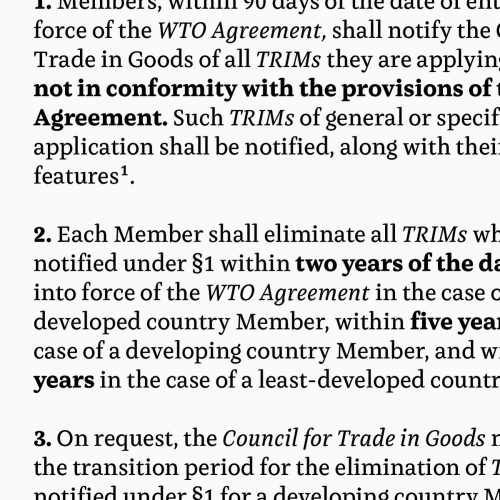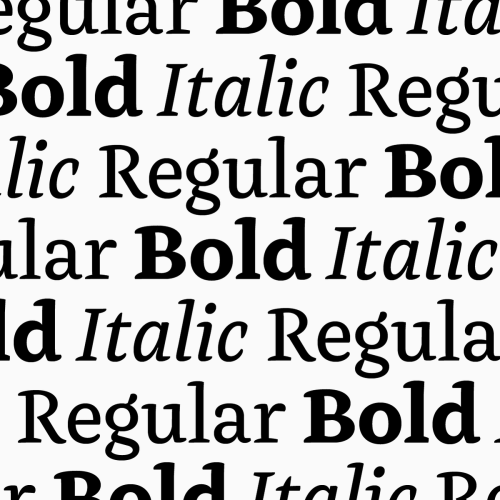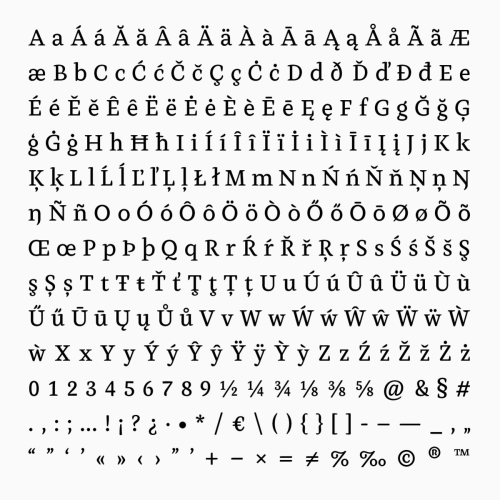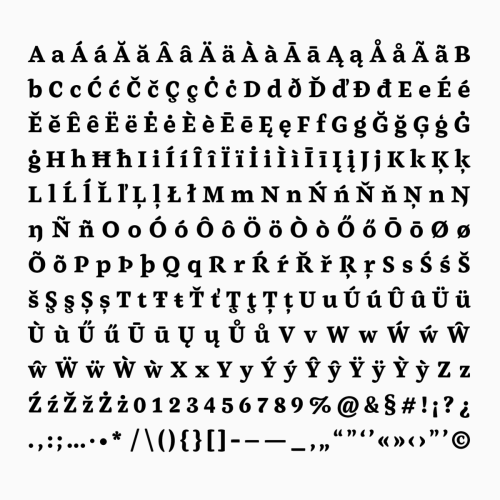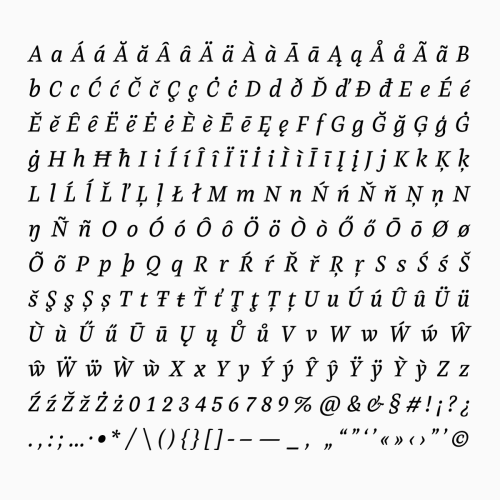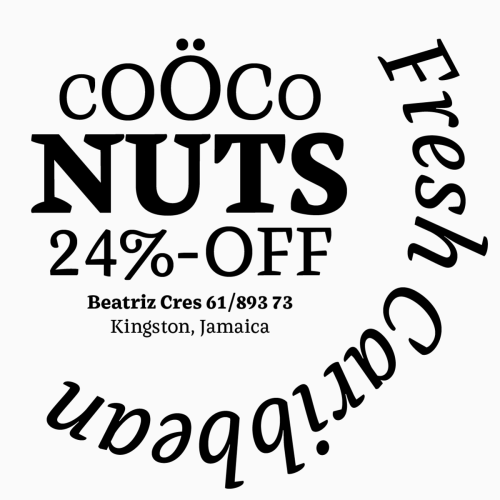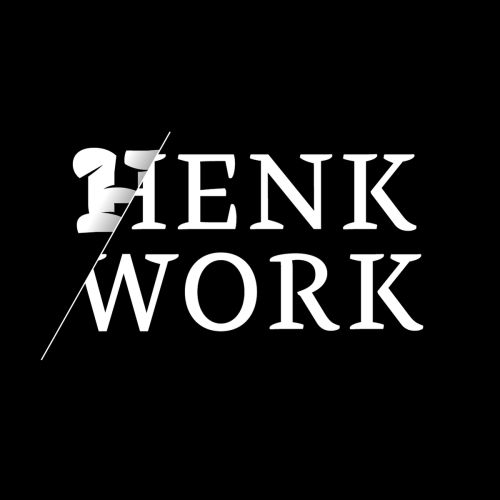
Henk Work Font
Henk began during my studies at the Type Media masters course at KABK as my final project. Henk has been planned as a family of at least 6 styles with two different personalities. Henk Out and Henk Work. Henk Work is a smart and hardworking gentleman typeface designed for the writing of the long legal texts which often contain a lot of abbreviations and numbers in them.
Henk Work Font gives long-form text a classic, trustworthy rhythm — ideal for magazine spreads, annual reports and book interiors.
Pair Henk Work Font with generous letter-spacing for wordmarks in fashion, hospitality, wine and jewellery branding.
Use Henk Work Font for slide titles in Keynote, PowerPoint or Google Slides to add authority without looking dated.